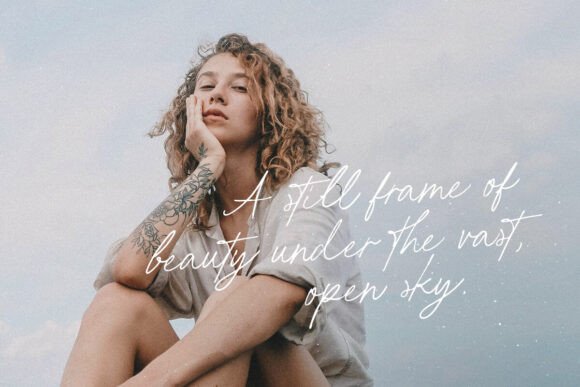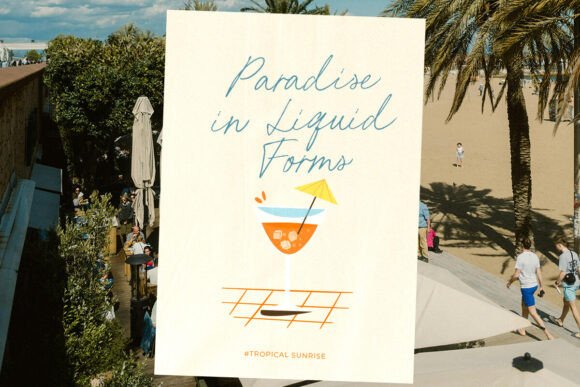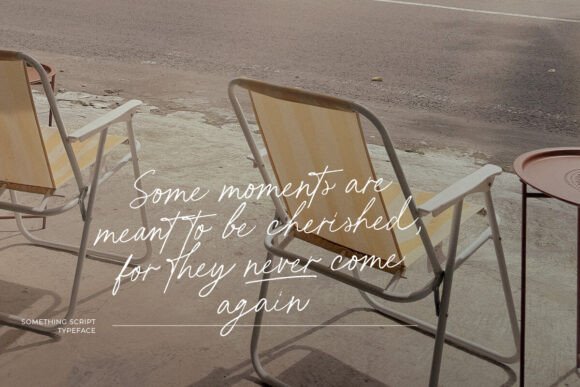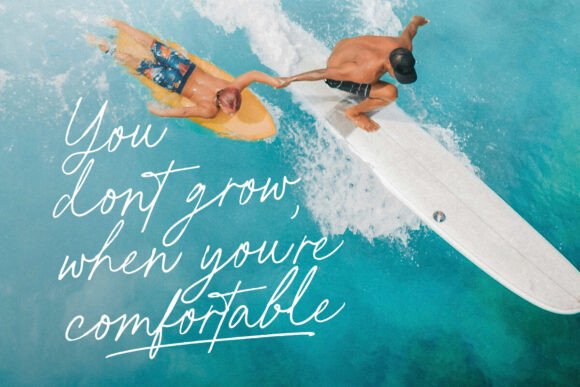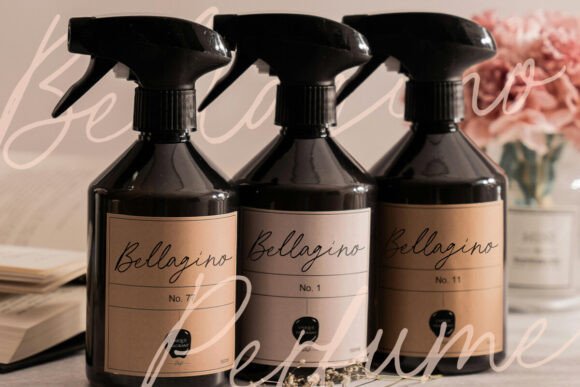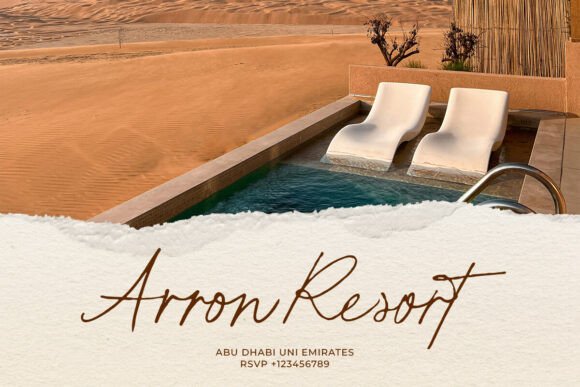
Introduction to Les Romantic Font
As designers, we’ve all been there – staring at a blank page, trying to bring a creative project to life. The perfect font can make all the difference, transporting your ideas from mere concepts to tangible, beautiful realities. For those seeking a font that captures the essence of handwritten elegance, look no further than Les Romantic Font. This stunning script font is designed to add a touch of sophistication to any design, from wedding invitations to labels and logos.
What sets Les Romantic Font apart is its unique blend of high-quality design and versatility. With its ligatures and underline feature, you can create a truly one-of-a-kind look that’s perfect for any creative project. Plus, with multilingual support and a transparent background, this font is a valuable resource for designers working on a variety of projects. And the best part? Les Romantic Font is available for free download, making it an essential addition to any design arsenal.
Whether you’re working on a free download or a high-end design project, Les Romantic Font is sure to elevate your work and leave a lasting impression on your audience.
Key Features of Les Romantic Font
- High-quality design resource ideal for creative projects, including wedding invitations, greeting cards, and other romantic themes.
- Features a unique, elegant script style with a transparent background, allowing for seamless integration into various design elements.
- Includes a range of characters, including uppercase and lowercase letters, numbers, and punctuation marks, making it a versatile font for various applications.
- Designed with a high level of detail and precision, ensuring crisp and clear readability at resolutions up to 300 DPI.
Honest Review: Les Romantic Font
As a designer, I’m always on the lookout for high-quality fonts that can elevate my creative projects. Les Romantic Font is one of the latest additions to my design resource library, and I’m excited to share my thoughts on it.
✨ One of the things that works well with Les Romantic Font is its beautiful, cursive script. It’s perfect for titles, headings, and other design elements where a touch of elegance is needed. The font also comes with a transparent background, making it easy to use in various design scenarios.
- ✨ Beautiful, cursive script perfect for titles and headings
- ✨ Transparent background for easy design integration
⚠️ However, I do wish that Les Romantic Font had more language support, as it’s currently only available in a limited number of languages. Additionally, some users may find the font to be a bit too ornate for certain design projects.
Overall, Les Romantic Font is a great addition to any designer’s library, especially those working on creative projects that require a touch of romance and elegance. While it has some limitations, its high quality and beautiful design make it a worthwhile download.
How to Use Les Romantic Font
Les Romantic Font is a high-quality design resource perfect for adding a touch of elegance to your creative project. With its beautiful, cursive script, this font is ideal for any project that requires a romantic and sophisticated look.
Using Les Romantic Font in Design Applications
Les Romantic Font can be used in a variety of design applications, including:
– Use Les Romantic Font to create beautiful invitations, posters, and social media graphics.
– Add Les Romantic Font to your designs for a touch of elegance and sophistication.
– Use Les Romantic Font to create stunning presentations and documents.
Tips for Getting the Most Out of Les Romantic Font
To get the most out of Les Romantic Font, try using it with a transparent background to create a beautiful, layered look. You can also experiment with different font sizes and colors to create a unique and eye-catching design.
Common Use Cases for Les Romantic Font
Les Romantic Font is perfect for a variety of creative projects, including:
- Anniversary and birthday cards
- Engagement and proposal designs
- Valentine’s Day and romantic gift tags
Q: Is Les Romantic Font suitable for print and digital designs?
Yes, Les Romantic Font is suitable for both print and digital designs. The font is designed to be high-quality and versatile, making it perfect for a variety of creative projects, including business cards, brochures, websites, and social media graphics. The transparent background of the font makes it easy to use in digital designs, and its high-quality design ensures that it looks great in print.